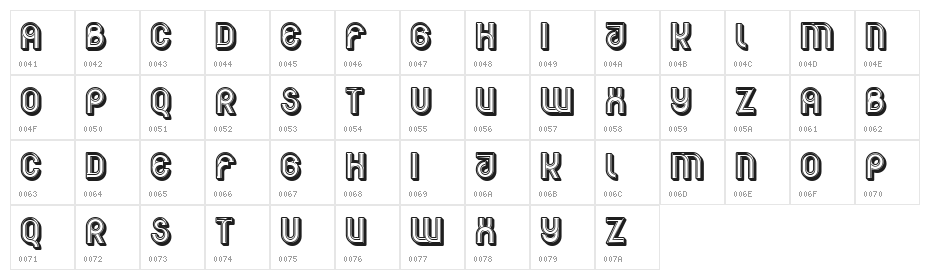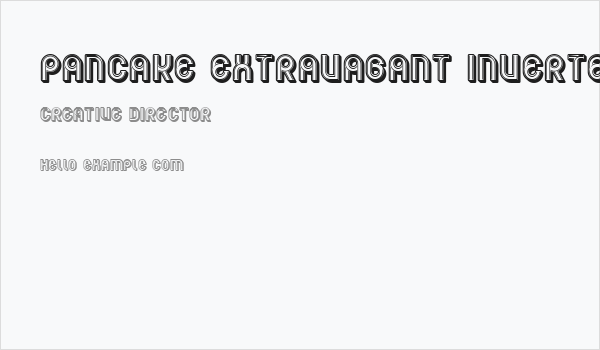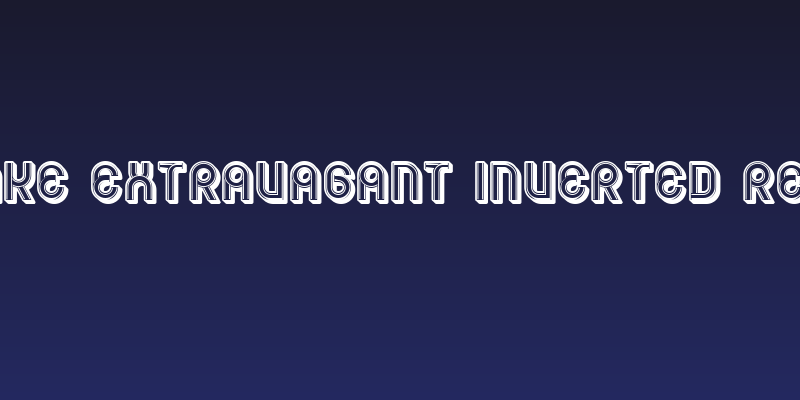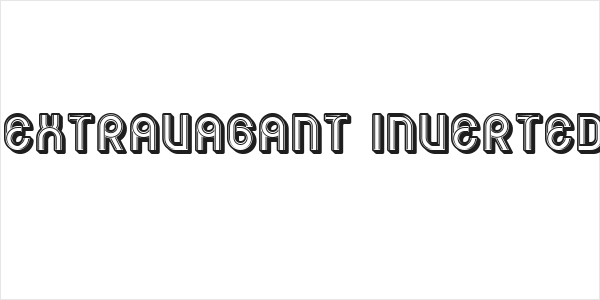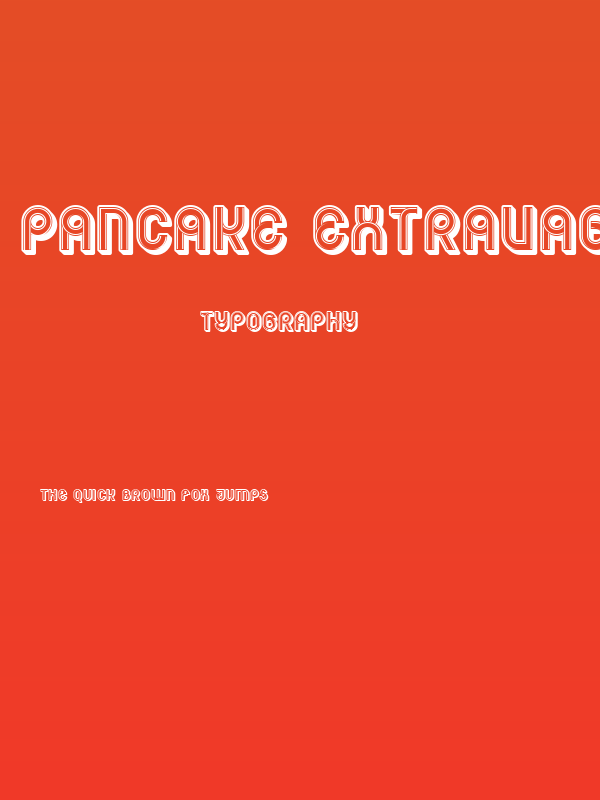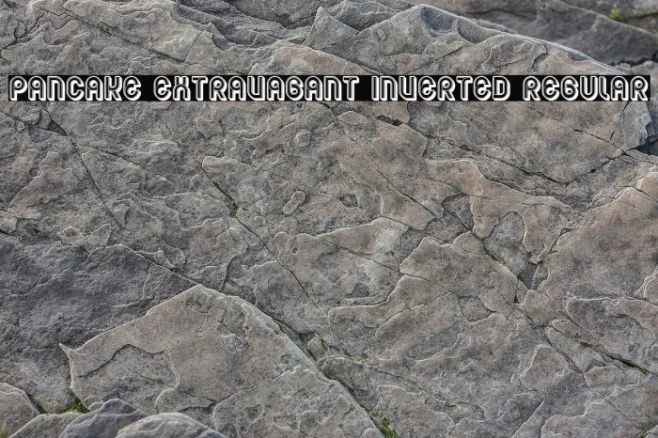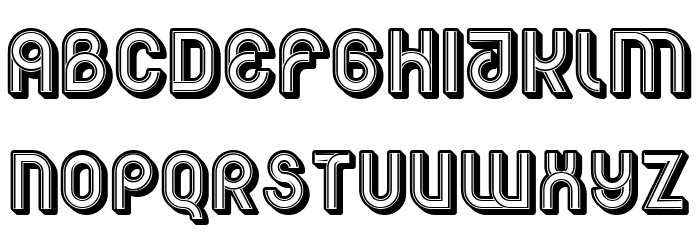
Pancake Extravagant Inverted Regular Font
Pancake Extravagant Inverted Regular Description
This font features a bold, decorative style with a unique layered effect that gives it a three-dimensional appearance. The letters are uppercase and have a playful, extravagant design, characterized by thick, rounded strokes and an intricate pattern of lines that create an inverted shadow effect. The overall look is eye-catching and dynamic, making it suitable for attention-grabbing headlines or creative projects. The spacing between characters is relatively tight, enhancing the cohesive and compact appearance of the text. This font's distinctive style is both modern and retro, offering a versatile option for various design needs.
| Overall Style | Modern, Retro |
| Proposed Projects | Ideal for posters, logos, branding, and any project requiring a bold, eye-catching typeface. |